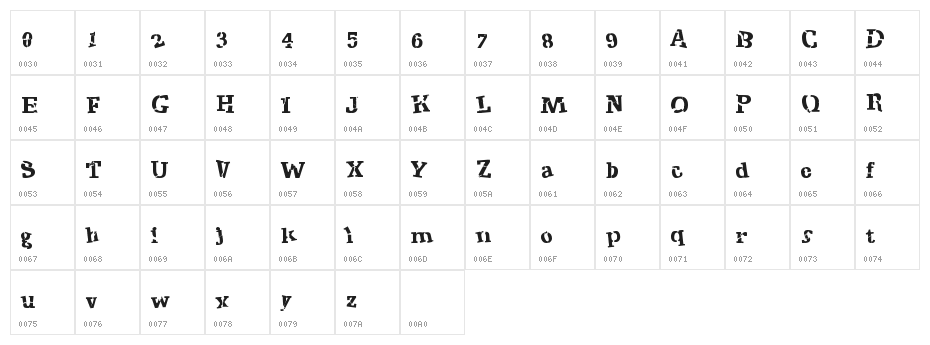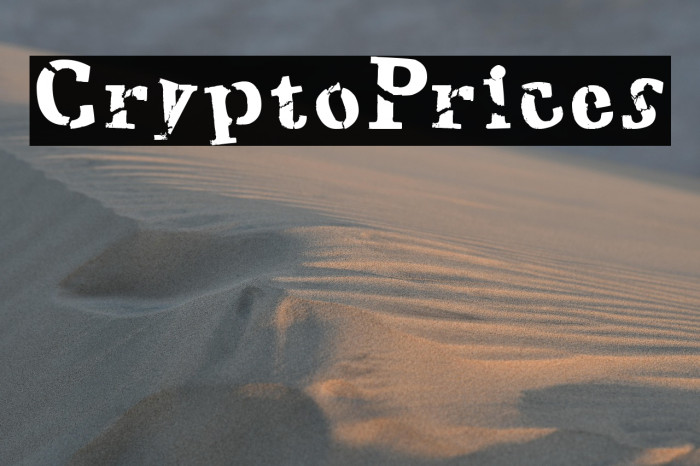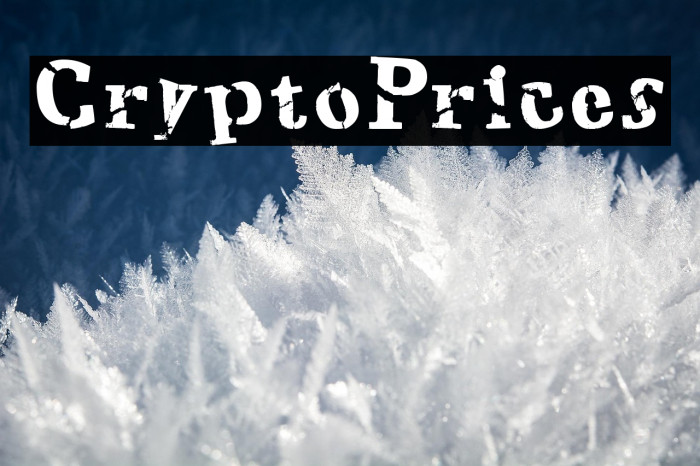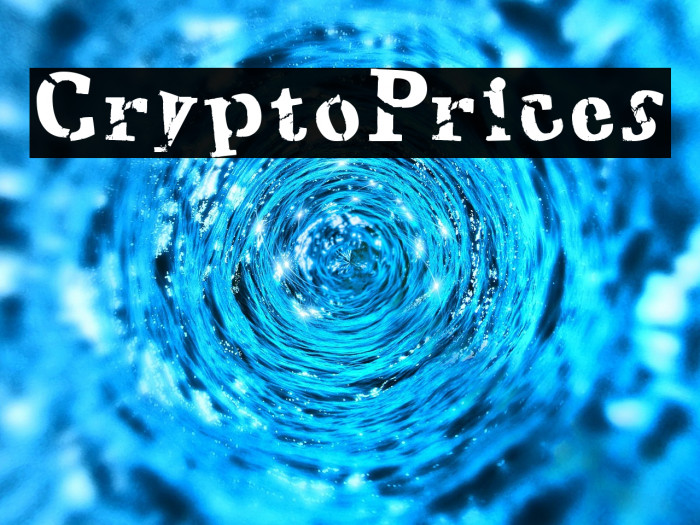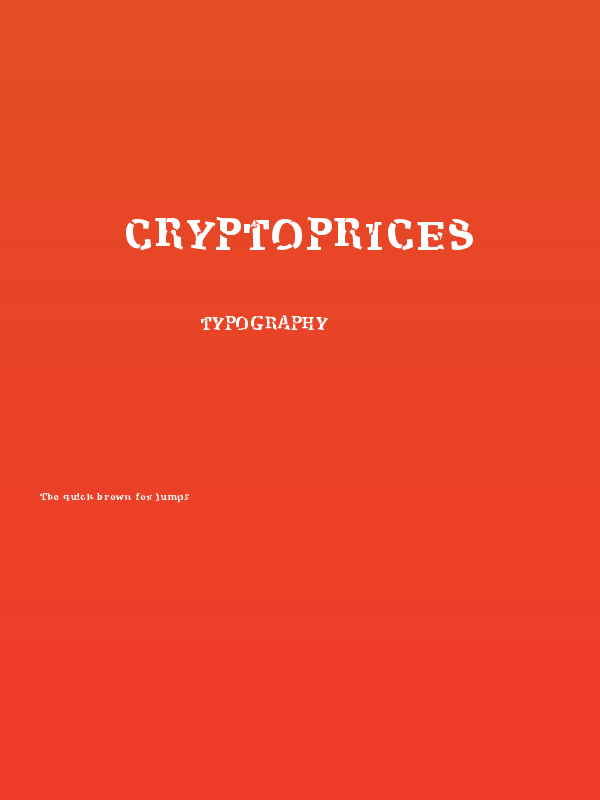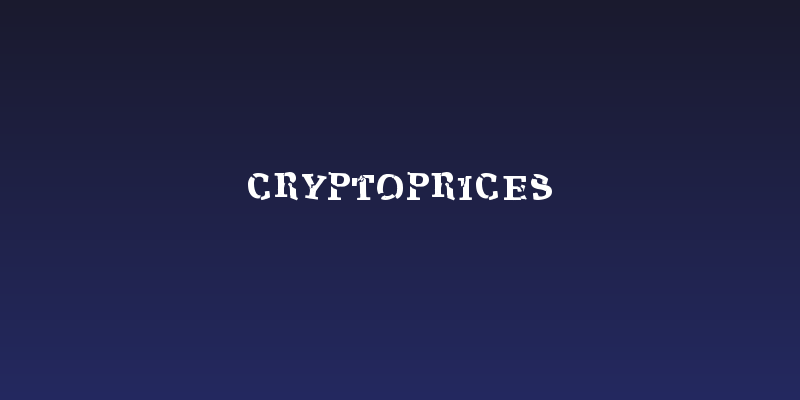
CryptoPrices Font
CryptoPrices Description
This font features a bold, distressed style with a stencil-like appearance. The characters are rugged and uneven, giving a sense of urgency and rawness. The uppercase and lowercase letters maintain a consistent design, with jagged edges and missing segments that create a worn, industrial look. Numbers and special characters follow the same aesthetic, enhancing the overall gritty feel. The font's unique style makes it stand out, perfect for projects that require a bold statement or an edgy, rebellious vibe.
| Overall Style | Industrial, Edgy |
| Proposed Projects | Ideal for posters, album covers, urban-themed designs, and branding that requires a bold, edgy look. |